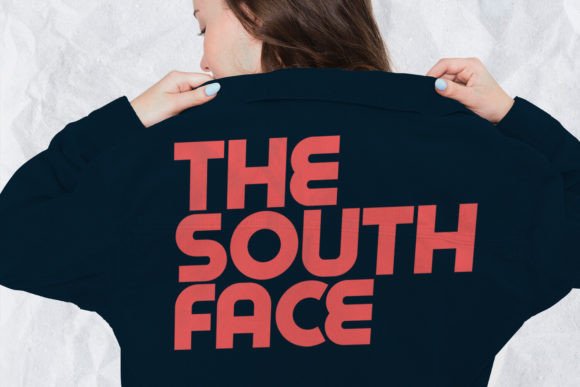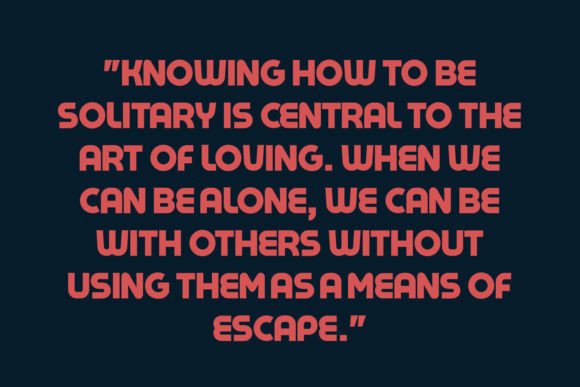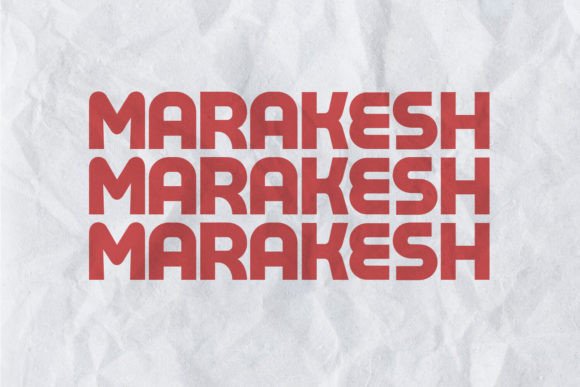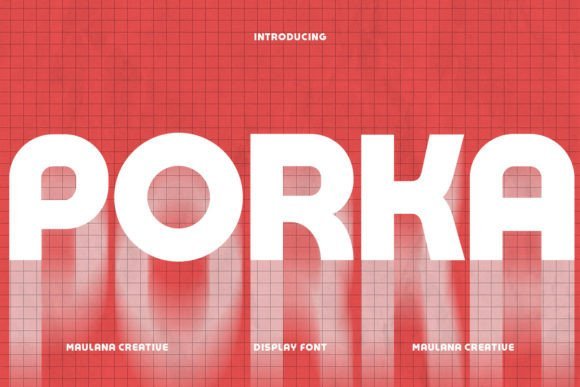
Introduction to Porka Font
Porka is an all-caps Geometric sans display font.
Bold stroke, fun character with a bit of ligatures and stylistic To give you an extra creative work.